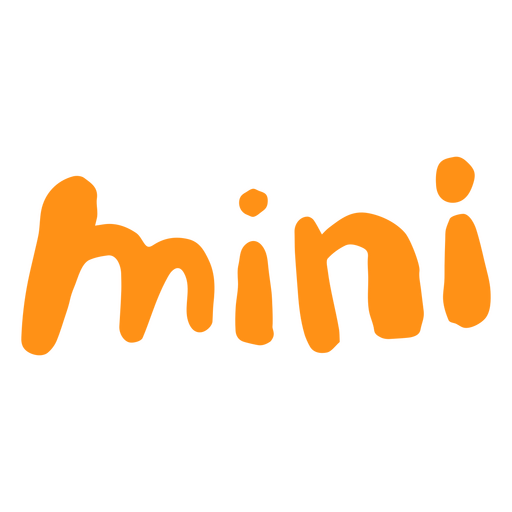
Bold orange text design with playful font style PNG Design
Whimsical design featuring the word 'mini' in a fun, rounded font style. Perfect for playful apparel or accessories.